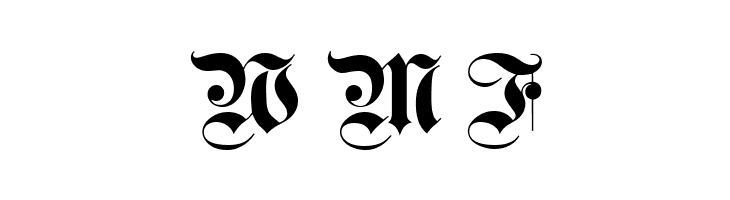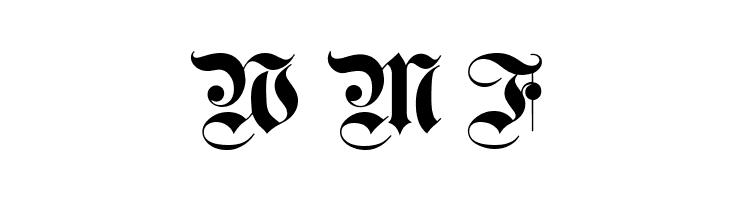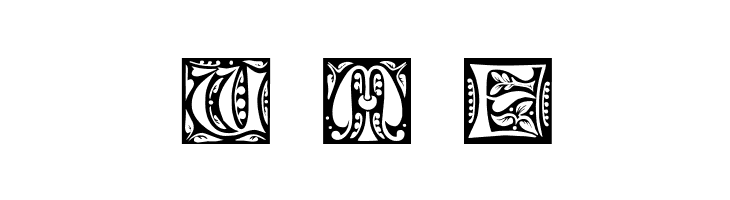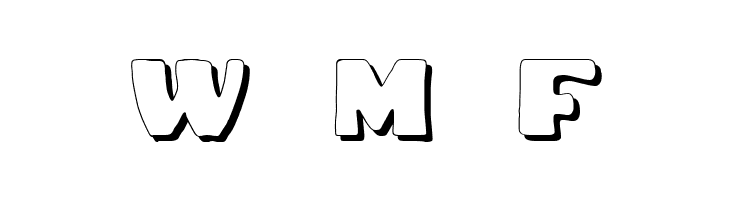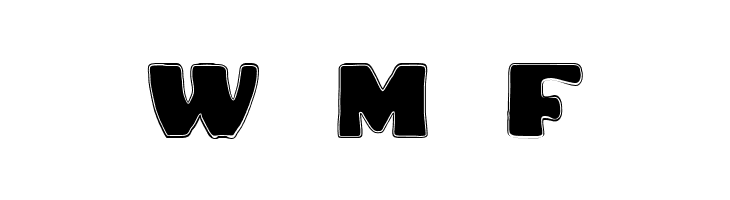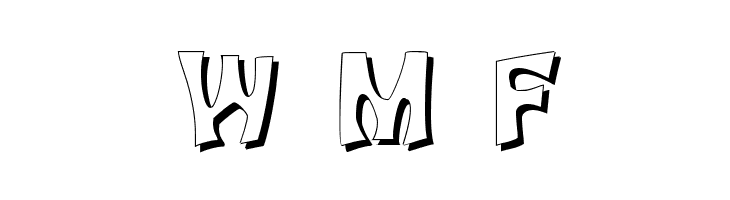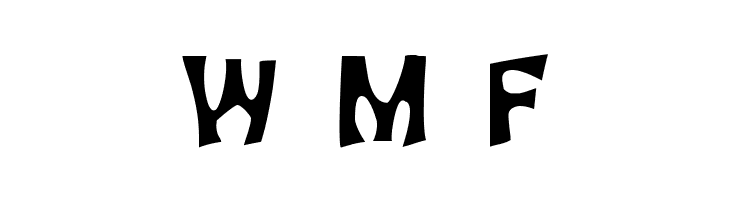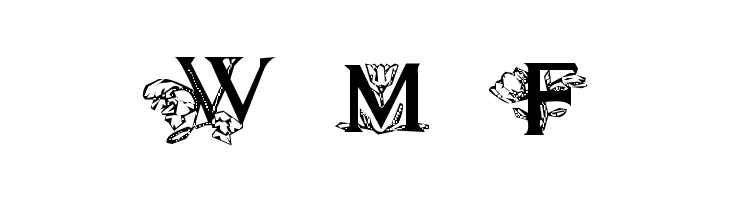
A bold, decorative blackletter font with intricate details and a historic flair.
A bold, ornate font with a classic, historical style.
A bold, contour-style font with thick outlines and a playful, assertive presence.
A bold, playful font with a shadow effect, perfect for eye-catching designs.
An ornate, decorative font with intricate floral patterns within square frames.
A bold, playful font with a shadow effect, perfect for eye-catching designs.
A bold, rounded font with a playful, three-dimensional contour.
A bold, shadowed font with a dynamic, graffiti-inspired style.
A bold, angular font with high contrast and geometric flair.
A decorative serif font with intricate floral embellishments.